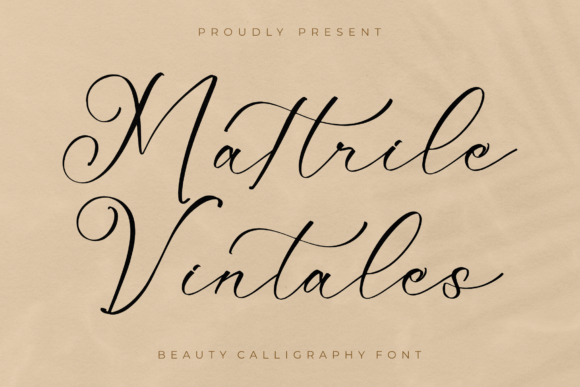
Unleash Elegance with Mattrile Vintales: The Quintessential Script Font
Prepare to be mesmerized by Mattrile Vintales, the epitome of elegance and sophistication in the world of typography. This script font, meticulously crafted by the talented designers at Storytype Studio, is not merely a typeface; it's an artistic expression that transcends the ordinary.
Imagine stepping into a realm of timeless beauty, where words dance with grace and allure. Mattrile Vintales captures this essence effortlessly, transforming your designs into captivating masterpieces. Its meticulously crafted curves and delicate swashes evoke a sense of luxury and refinement that will leave an unforgettable impression on your audience.
With Mattrile Vintales, you hold the power to elevate your creative projects to new heights. Whether you're designing a captivating logo, crafting an enchanting book cover, or creating a movie title that lingers in the memory, this font will effortlessly elevate your vision. Its versatility extends beyond these traditional applications, seamlessly adapting to fashion branding, magazine layouts, clothing designs, lettering, and even heartfelt quotes.
Unlock the Gateway to Creative Freedom
Mattrile Vintales is more than just a font; it's an invitation to unlock your creative potential. Its diverse range of applications empowers you to explore limitless possibilities, transforming your ideas into tangible works of art. Whether you're a seasoned designer seeking to refine your craft or an aspiring artist eager to leave your mark on the world, this font will be your trusted companion.
Envision the allure of a fashion brand that exudes sophistication and elegance, its logo adorned with the flowing strokes of Mattrile Vintales. Picture the impact of a magazine cover that captivates readers with its captivating headlines, rendered in this exquisite script. Imagine the charm of personalized clothing, each letter meticulously crafted to reflect the wearer's unique style.
Immerse Yourself in a World of Luxury
With Mattrile Vintales, luxury is not merely a concept; it's an experience that permeates every design element. Its inherent beauty and timeless appeal add a touch of exclusivity to your creations, setting them apart from the ordinary. Whether you're designing a high-end product catalog or crafting an opulent invitation for a special event, this font will infuse your work with an air of sophistication that commands attention.
Discover the Allure of Mattrile Vintales Today
Mattrile Vintales is not just a font; it's a journey into the realm of exquisite typography. Its ability to transform ordinary designs into captivating works of art is truly remarkable. Embrace the power of this extraordinary script and watch as your creative vision unfolds in ways you never thought possible.